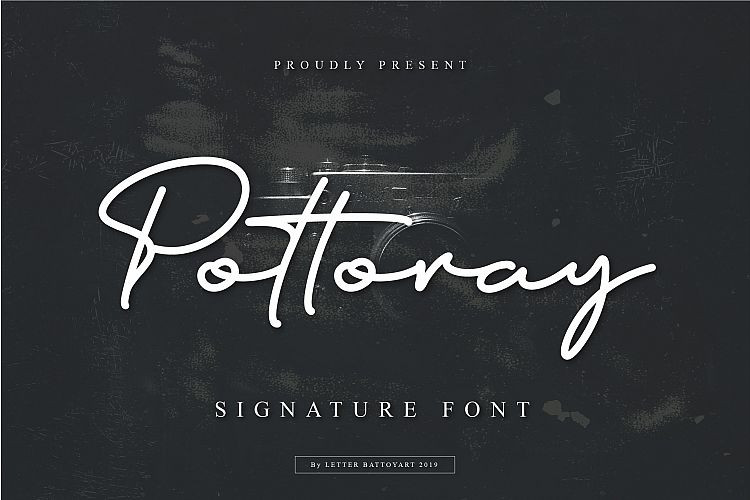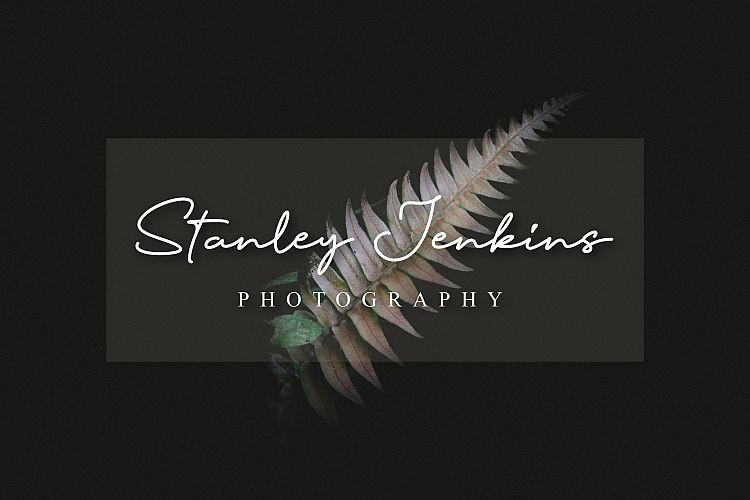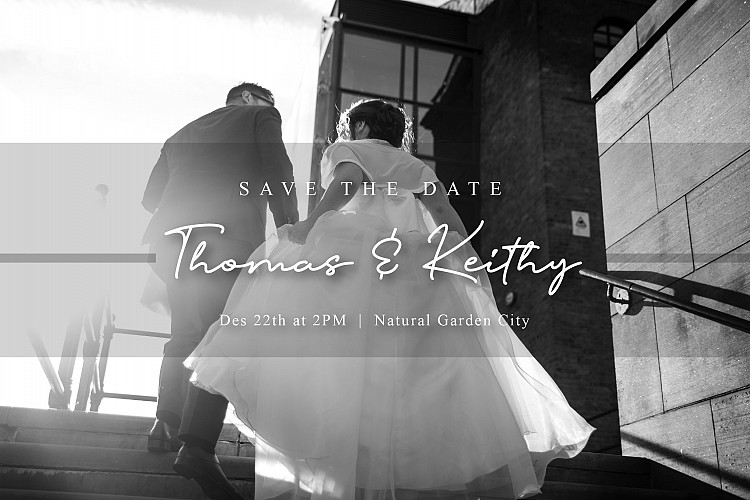
Pottoray – Signature Font
we just introduced our newest product, Pottoray Signature Font Great choice for you who loves the classy things, yet elegant to your special project, business or personal stuffs. this font can be the best choice for you.